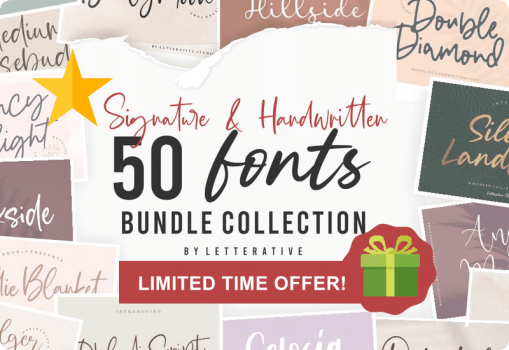
The Signature & Handwritten Fonts Bundle is great font collection from letterativestudio for anyone who wants to add a personal touch to their projects while still being able to use the same font style over and over again without having any repeated letters or words like a lot of other font collections have. You will have access to many different types of lettering formats, such as cursive and print handwriting.
You will get the following signature and handwritting fonts by letterativestudio:
- Obladi Script
- Badger Delight
- Eastern Hillside
- Birdwatch
- Howling Sinister
- Adorable
- Bearline
- Goldwind
- Misty Cloud
- Oriental Dream
- Fancy Delight
- Winter Sprinkle
- Seaside
- Camila Raindrop
- Nature Violces
- Birdlove
- Alpinet
- Wicked Dream
- Nostalgic
- Medium Rosebud
- Daily Feather
- Piglets
- Angelic Matilda
- Blankside
- Celosia Golden
- Sisterhood
- Daily Moon
- Bright Violet
- Aventurine
- Wonder Jasmine
- Heritage
- Ruxtoni
- Solitude
- Birdhave
- Miracle Justice
- Blackfeast
- Volatile
- Granite
- Goldena
- Silent Caroline
- Silent Landfield
- Miracle Sunrise
- Citruslime
- Blackswan
- Maledictus
- Goldie Blanket
- Double Diamond
- Castilla
- Sunday Bridge
- Eclipse Cinema
Whether you’re creating invitations, greeting cards, posters, logos, scrapbooking, Cricut or Silhouette crafts, stationery, or book covers these signature & handwritten fonts will be perfect for your project.